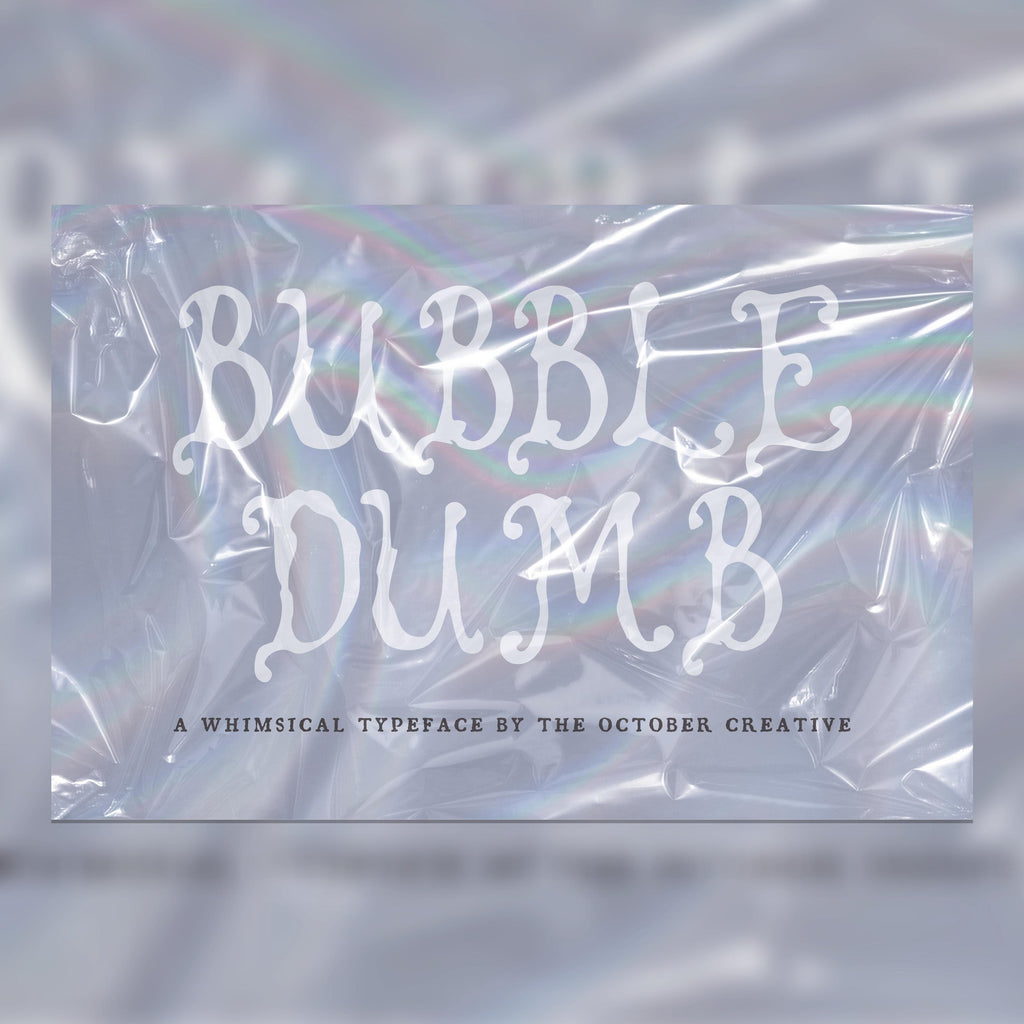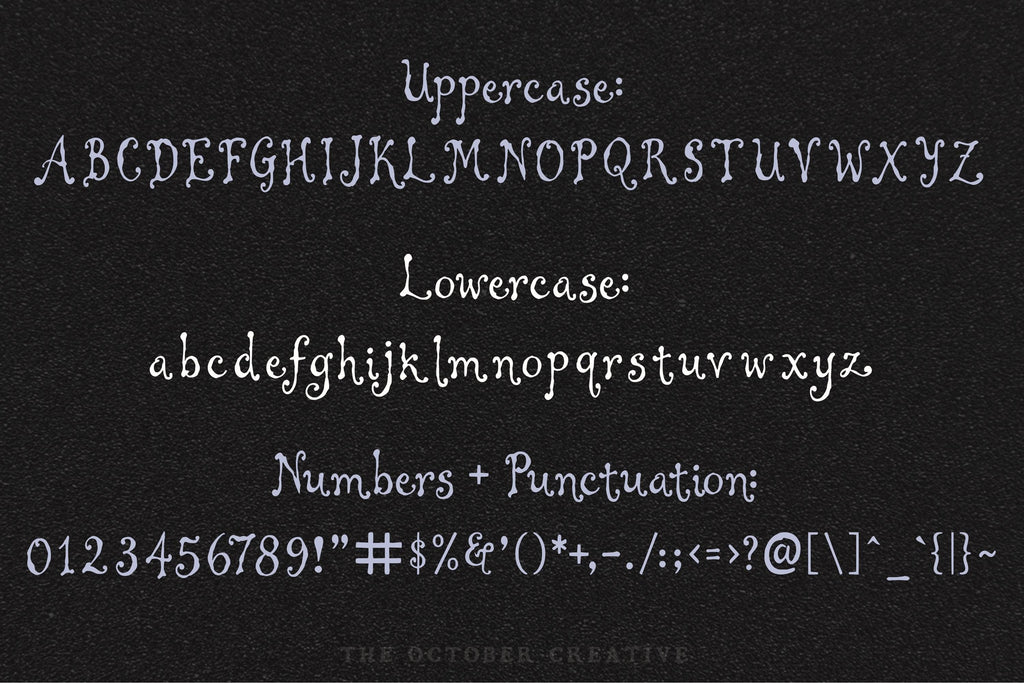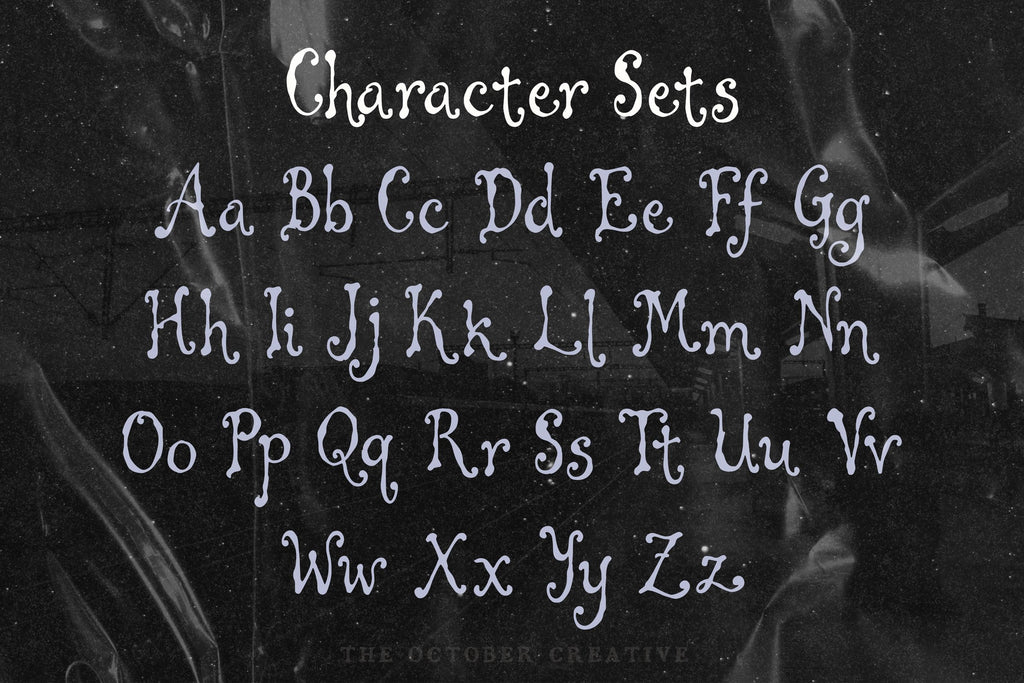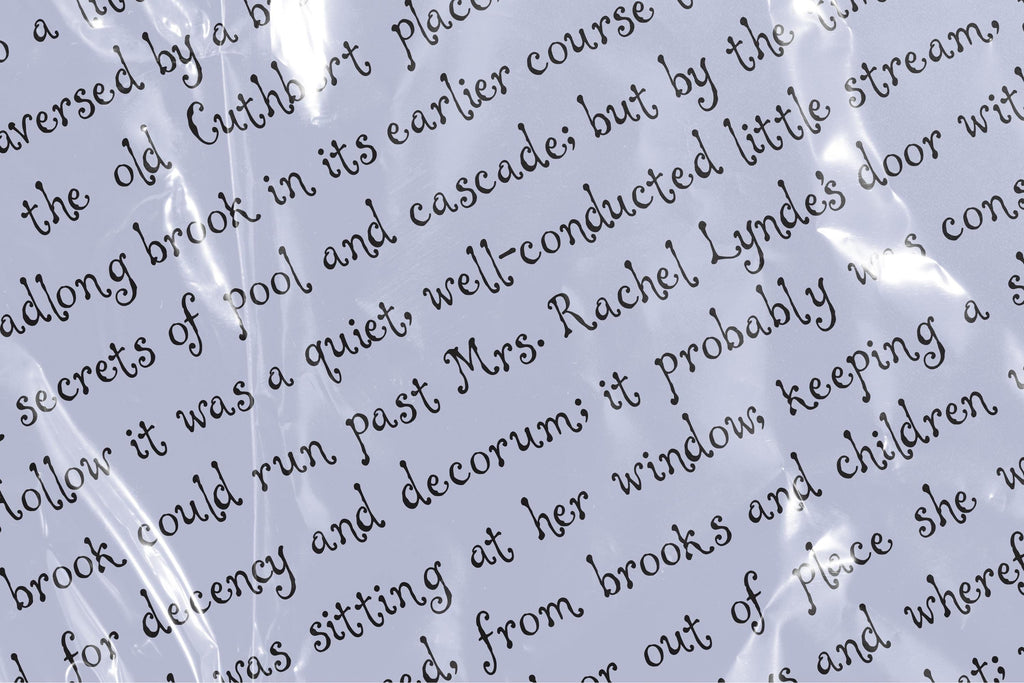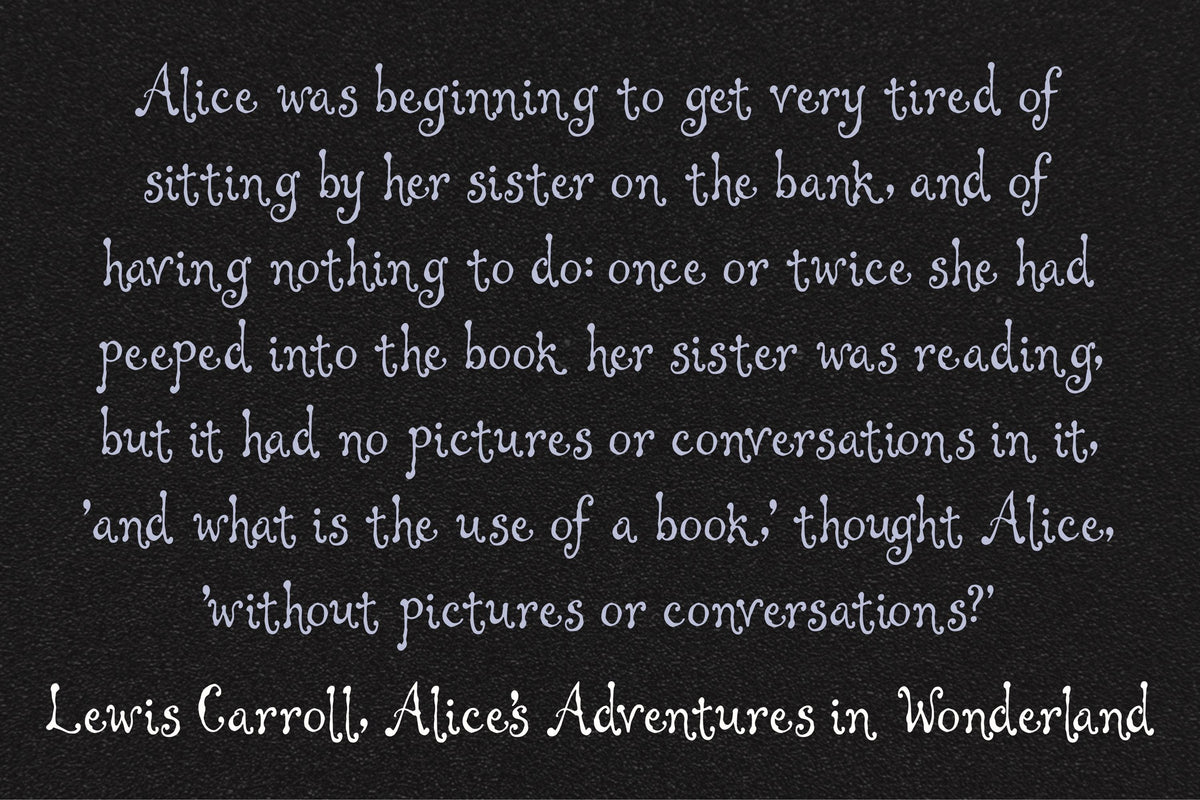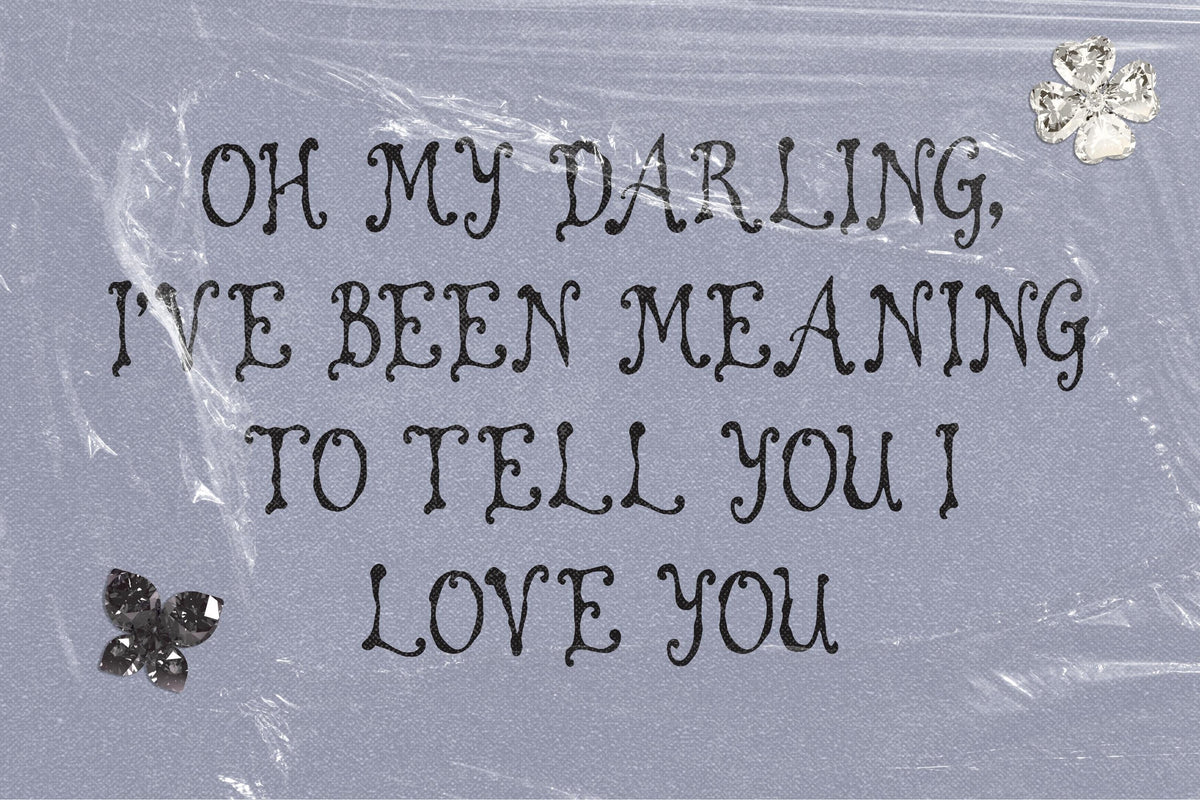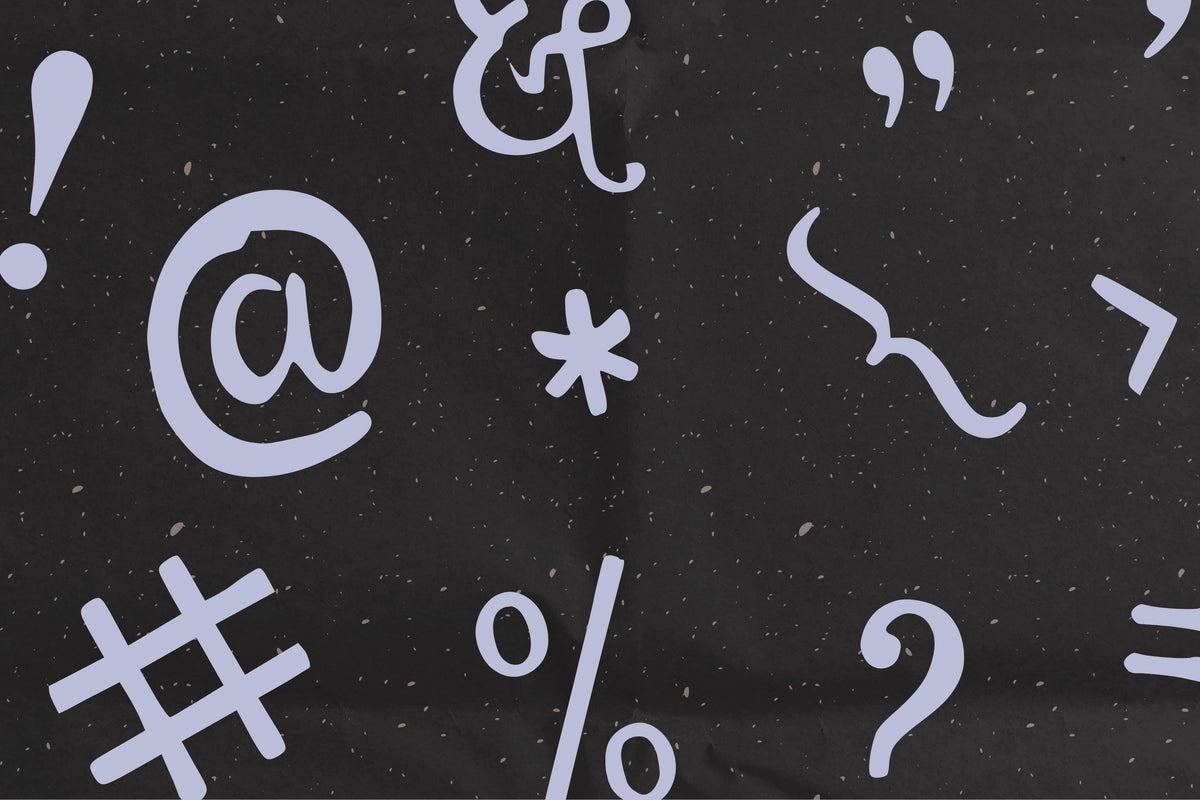
Bubbledumb Font
Bubbledumb brings big, round letters and a very cheerful lack of restraint to birthday invitations, party signs, and stickers. Its plump shapes make even a simple name feel ready for cake.